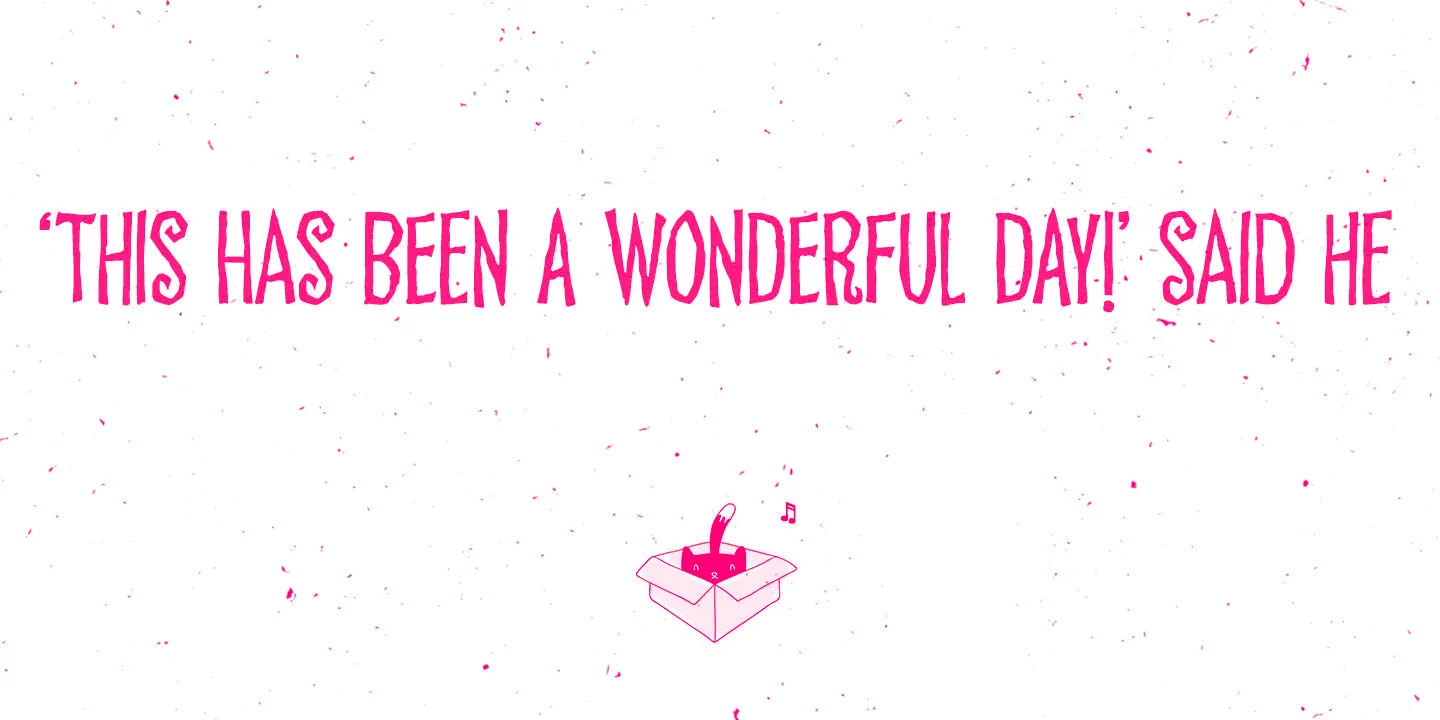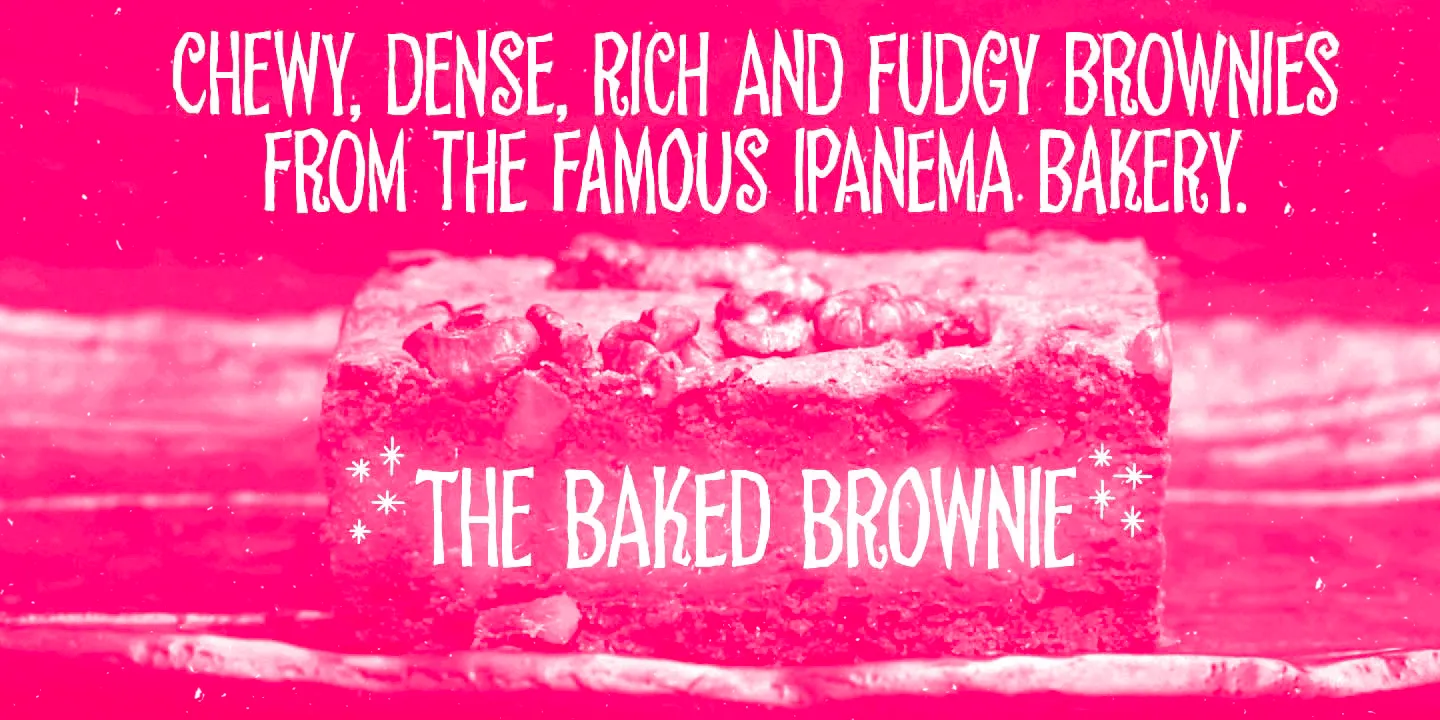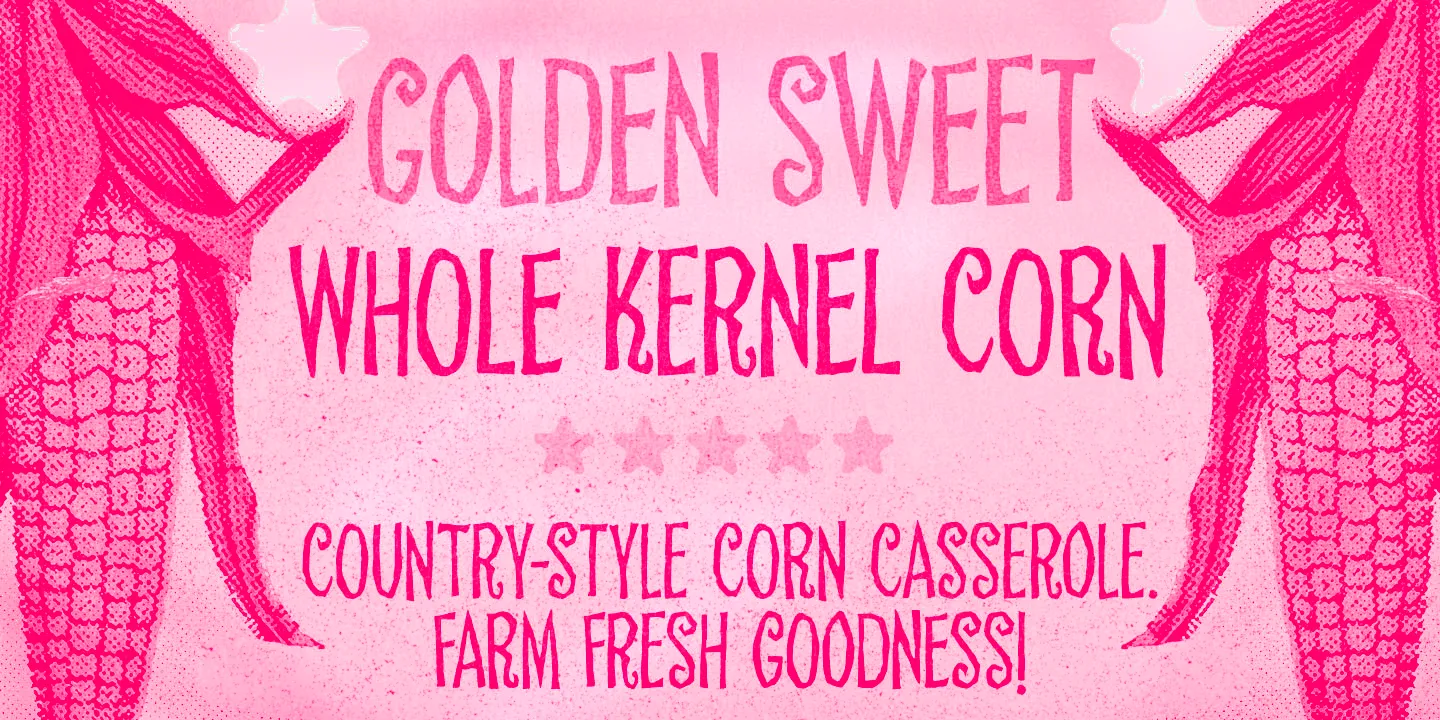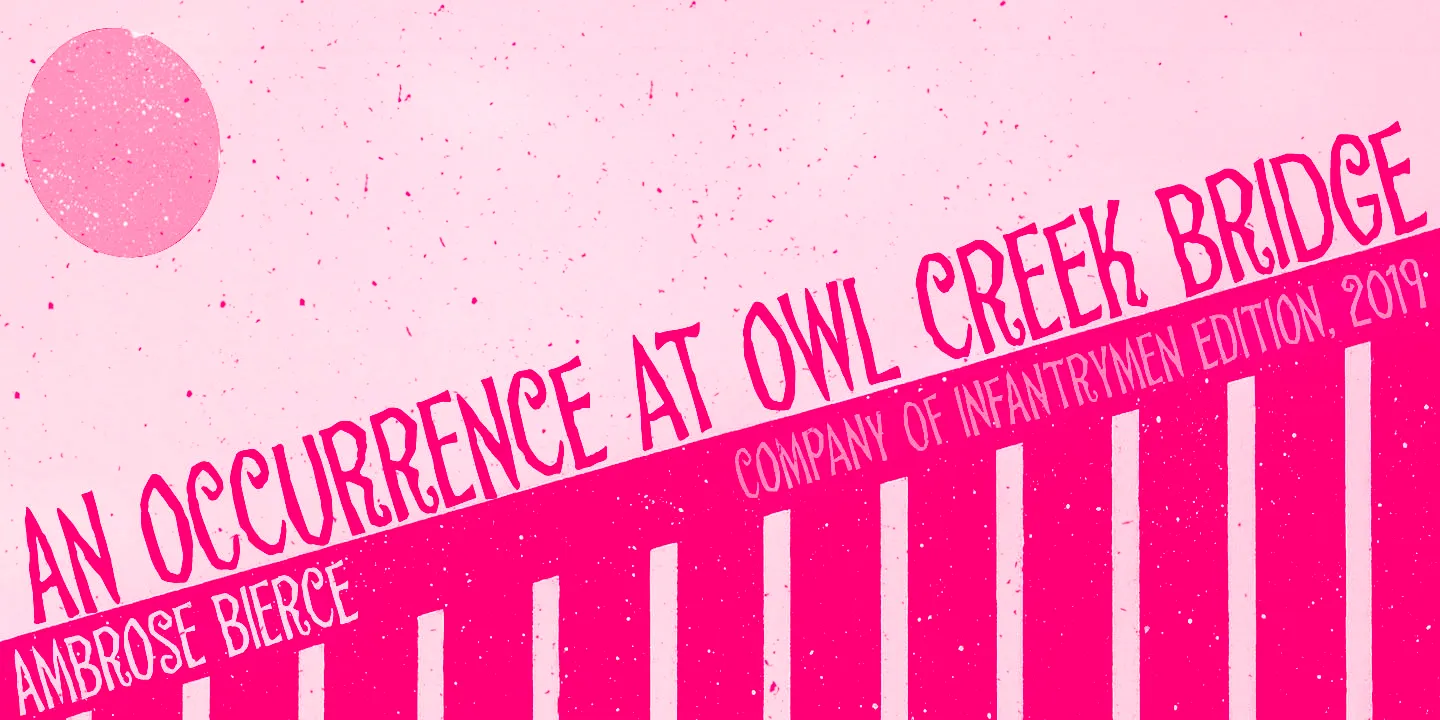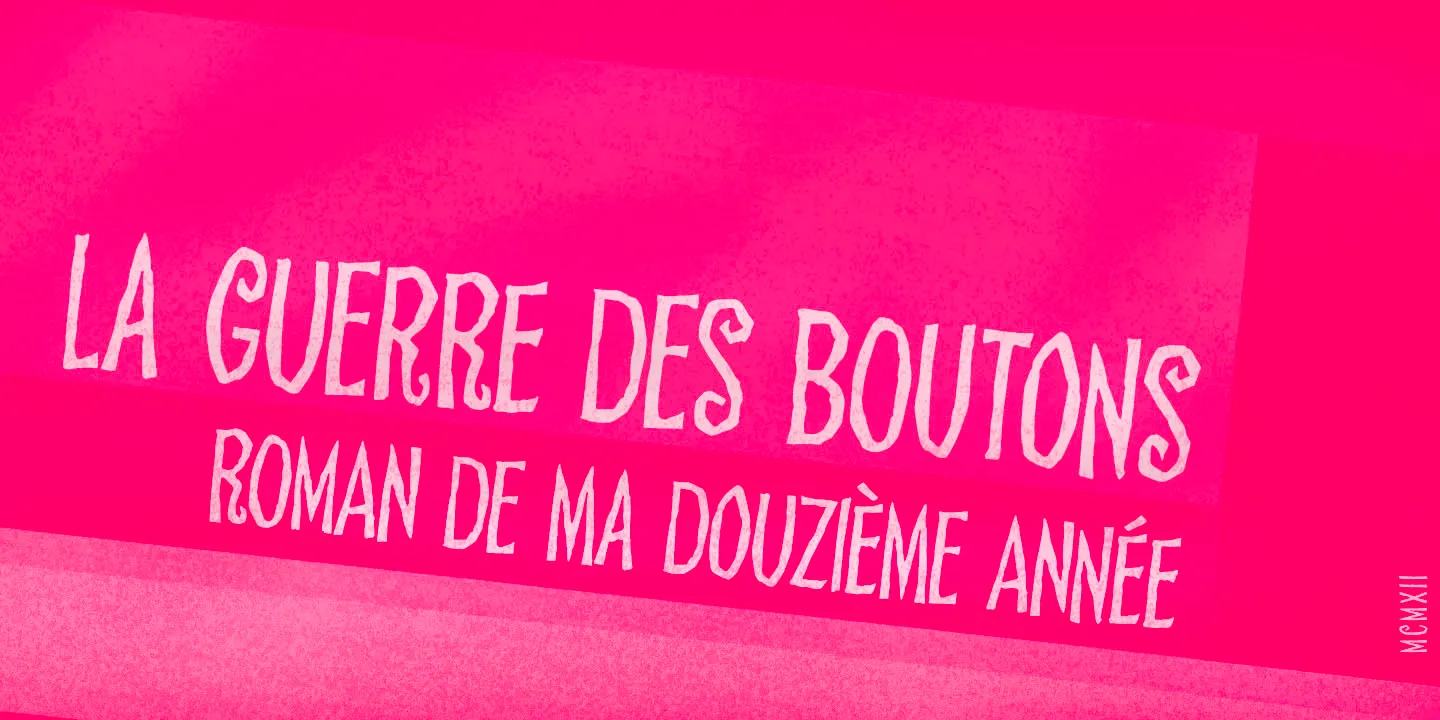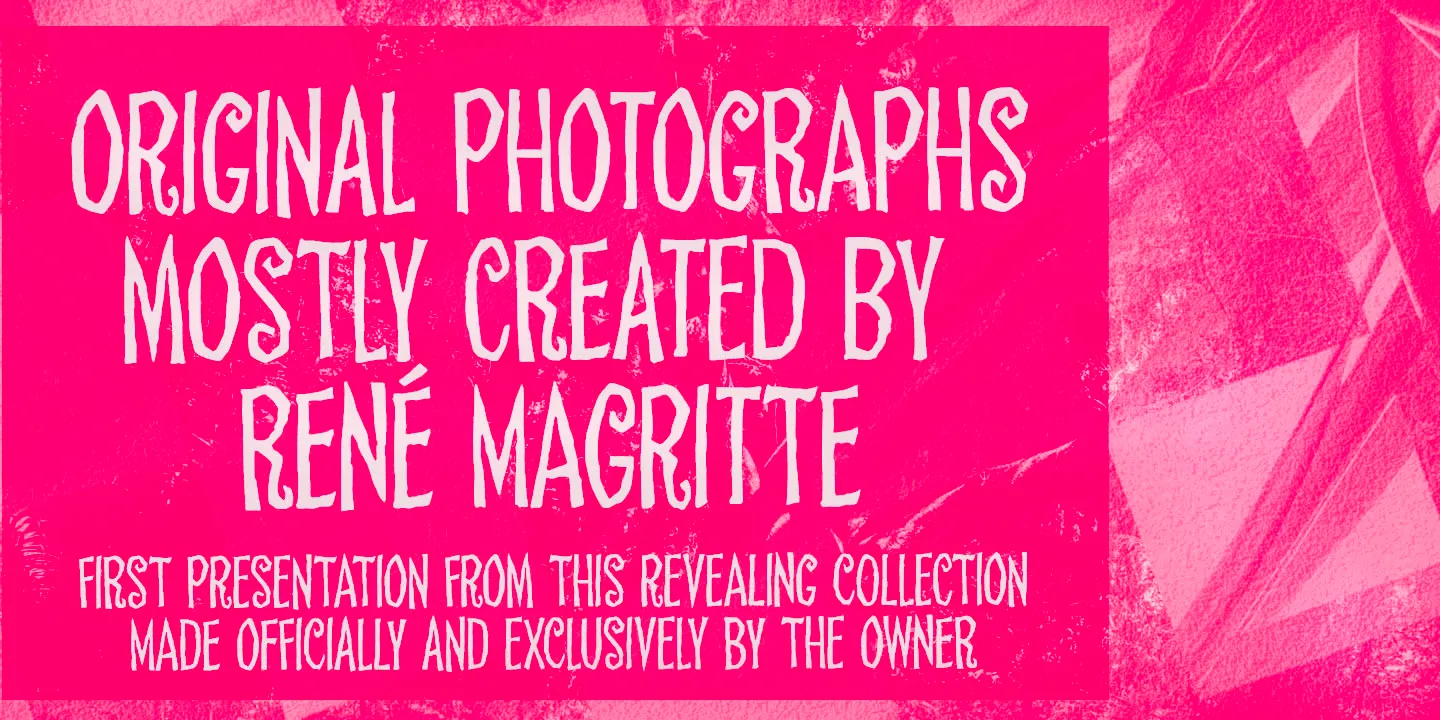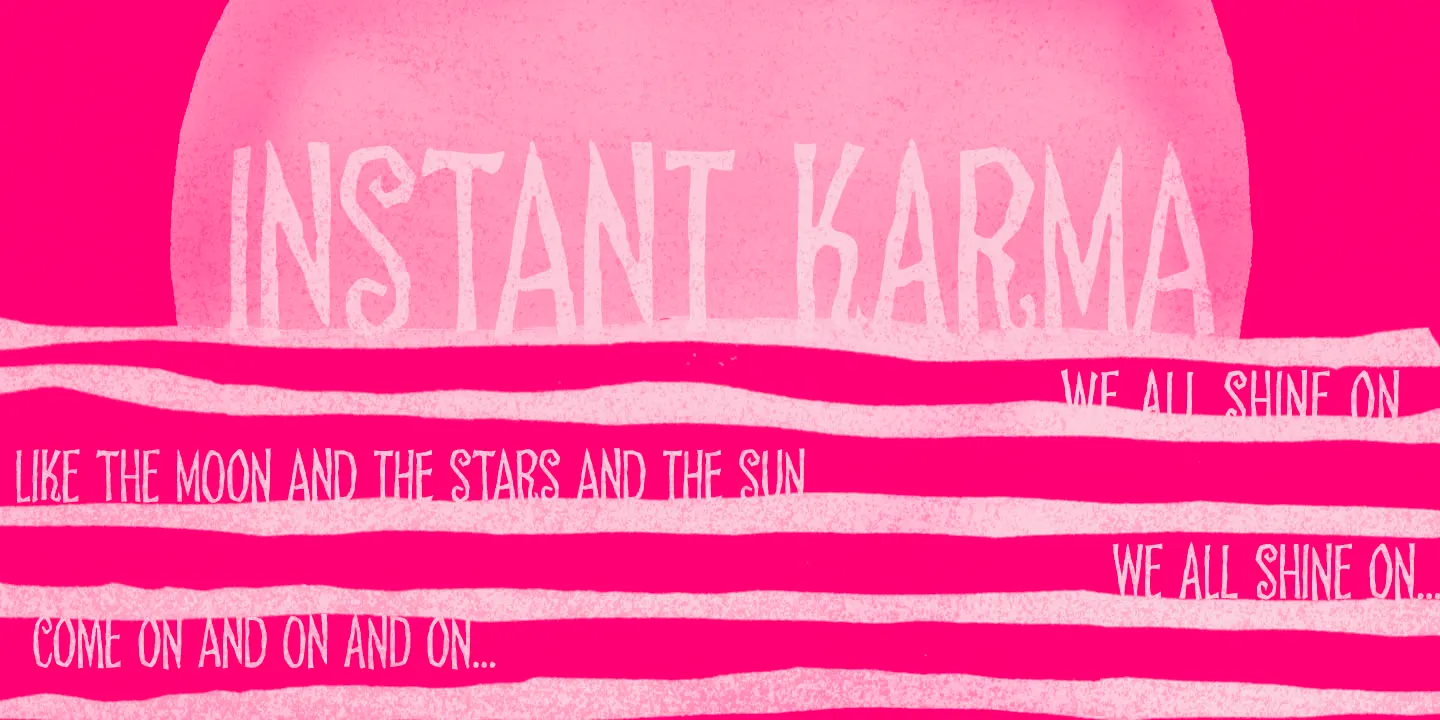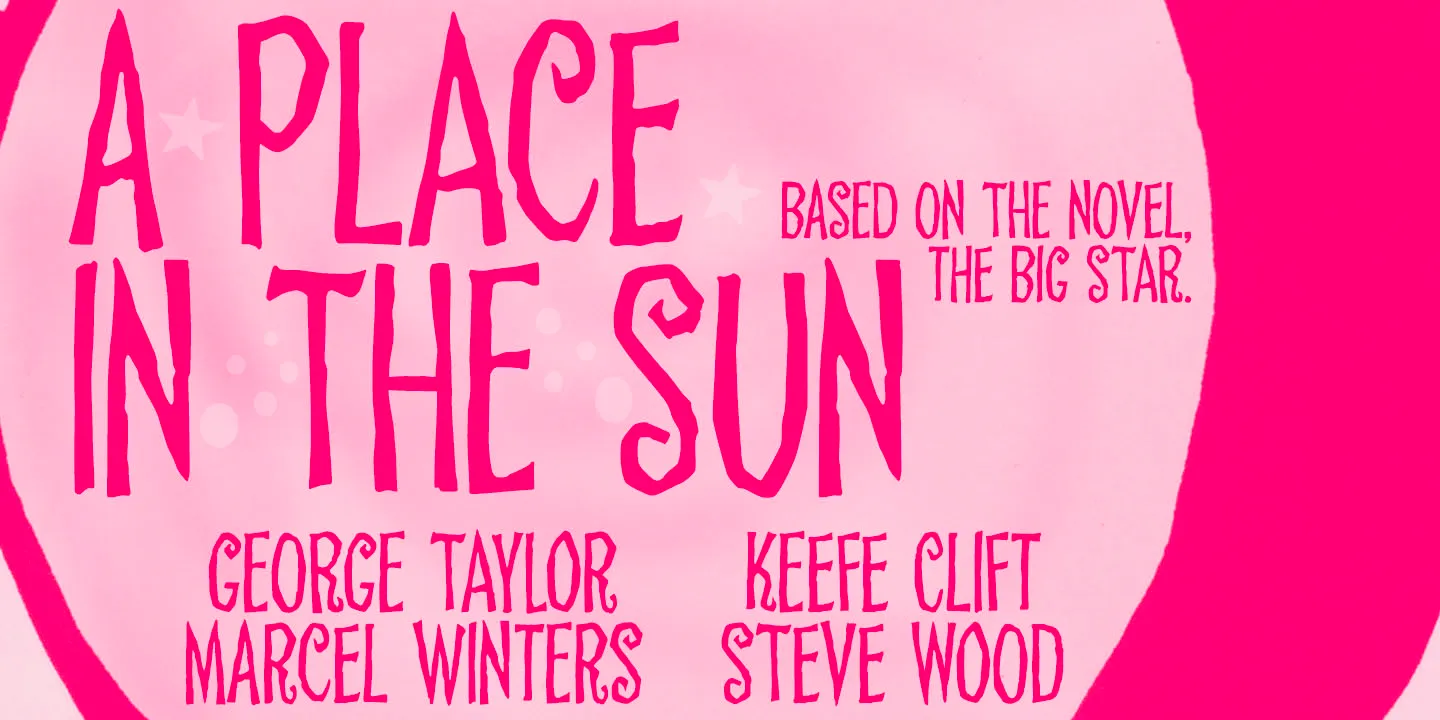
Pickles Font
Pickles
Pickles is a tall, retro-tasting display font with a twist. This lovely but slightly offbeat face draws inspiration from a handsomely hand-lettered movie poster from the sixties. There are alternates to avoid repetition and provide a more hand-lettered look. If you fancy, the ornaments and swash finishes are handy to sprinkle in here and there. Perfect for all kinds of groovy applications such as vintage fashion brands, retro concert posters, and quirky social media posts! Have a taste!
• Ornaments